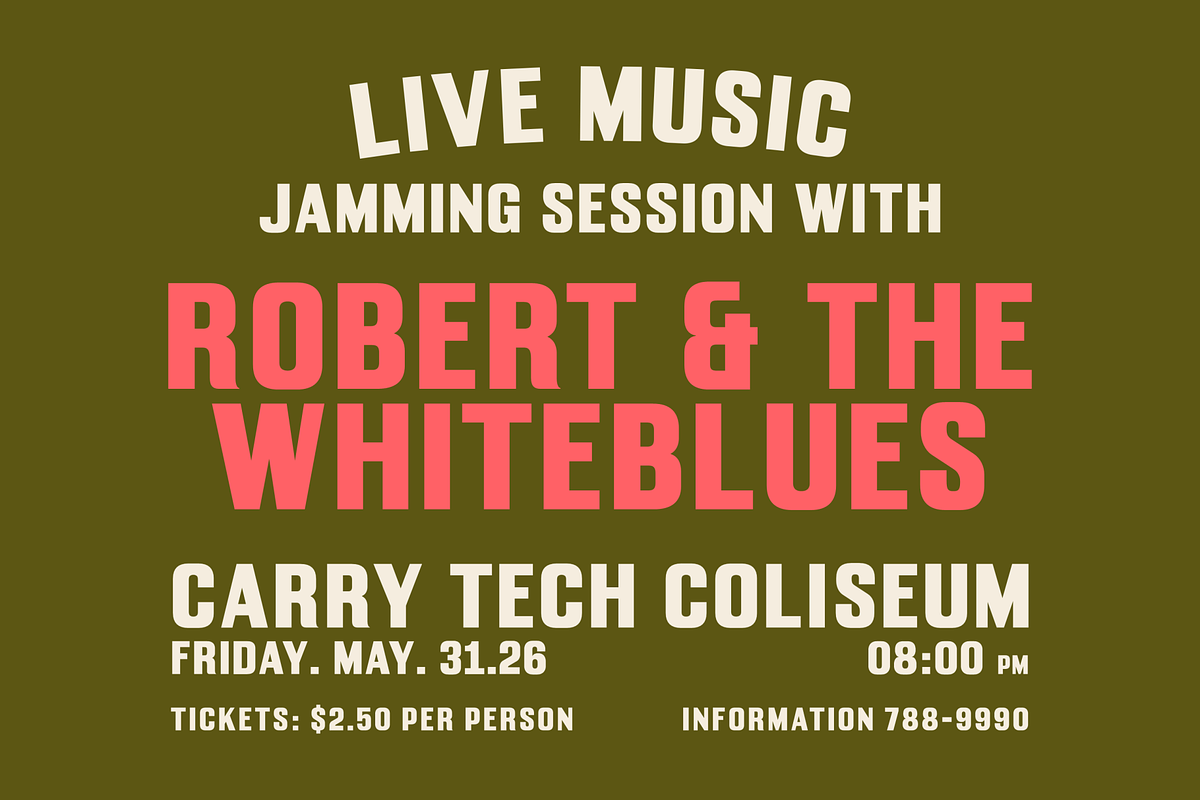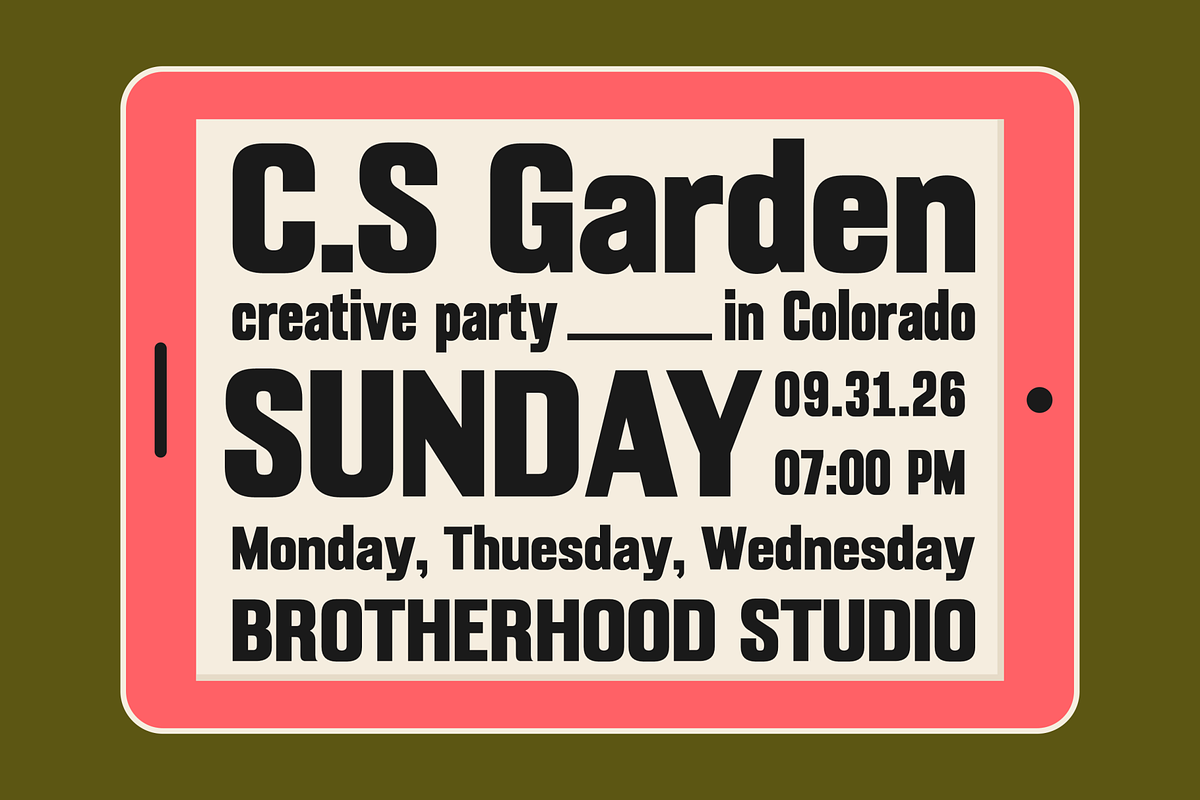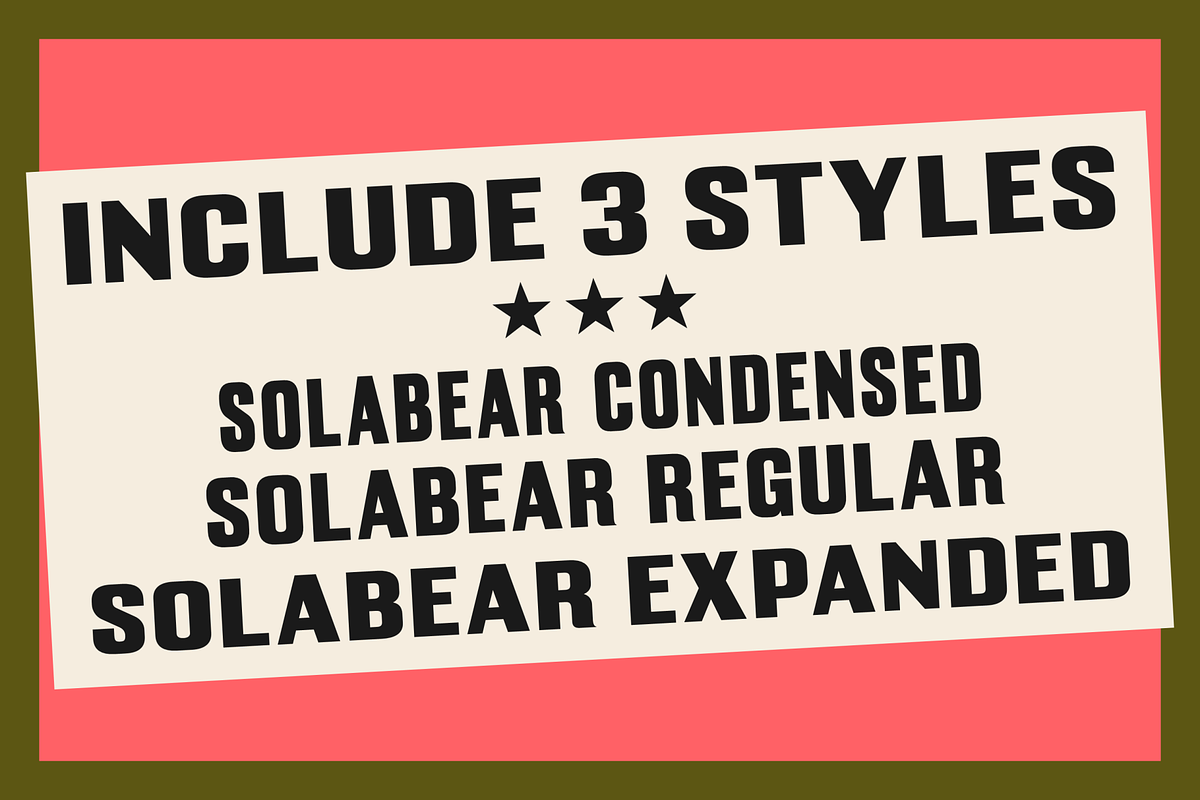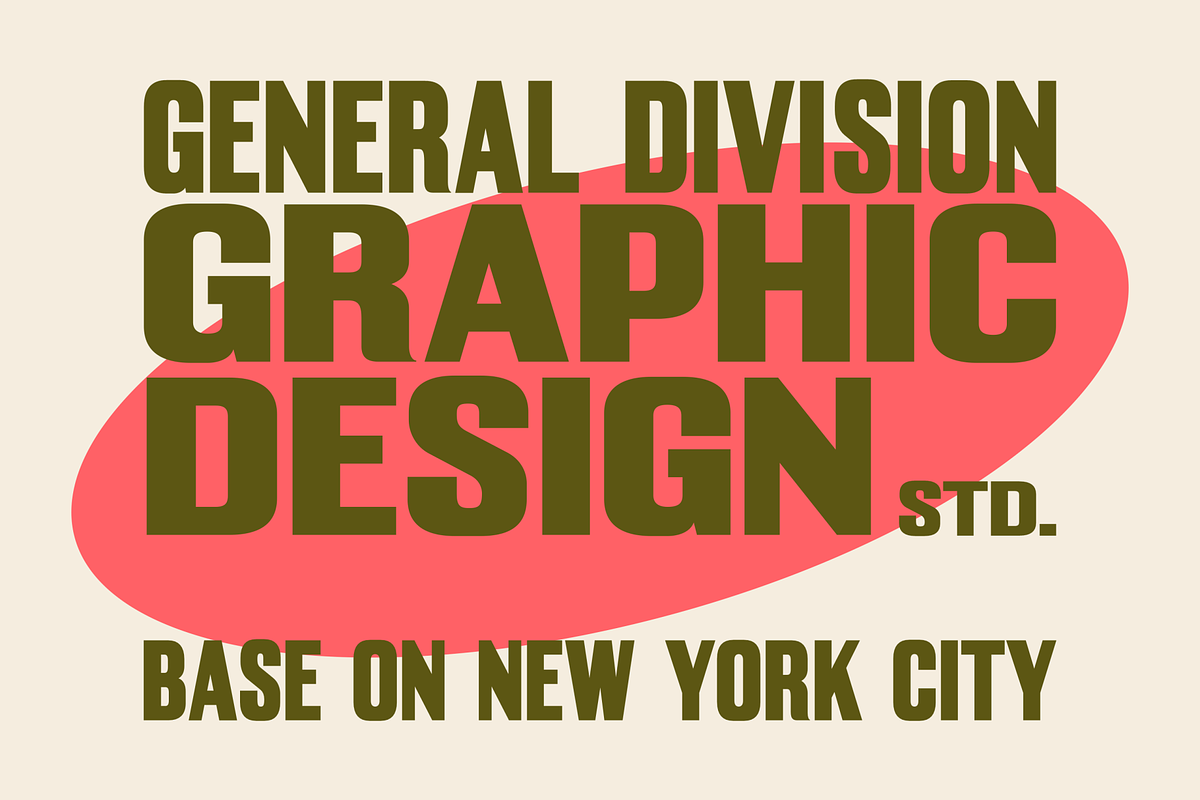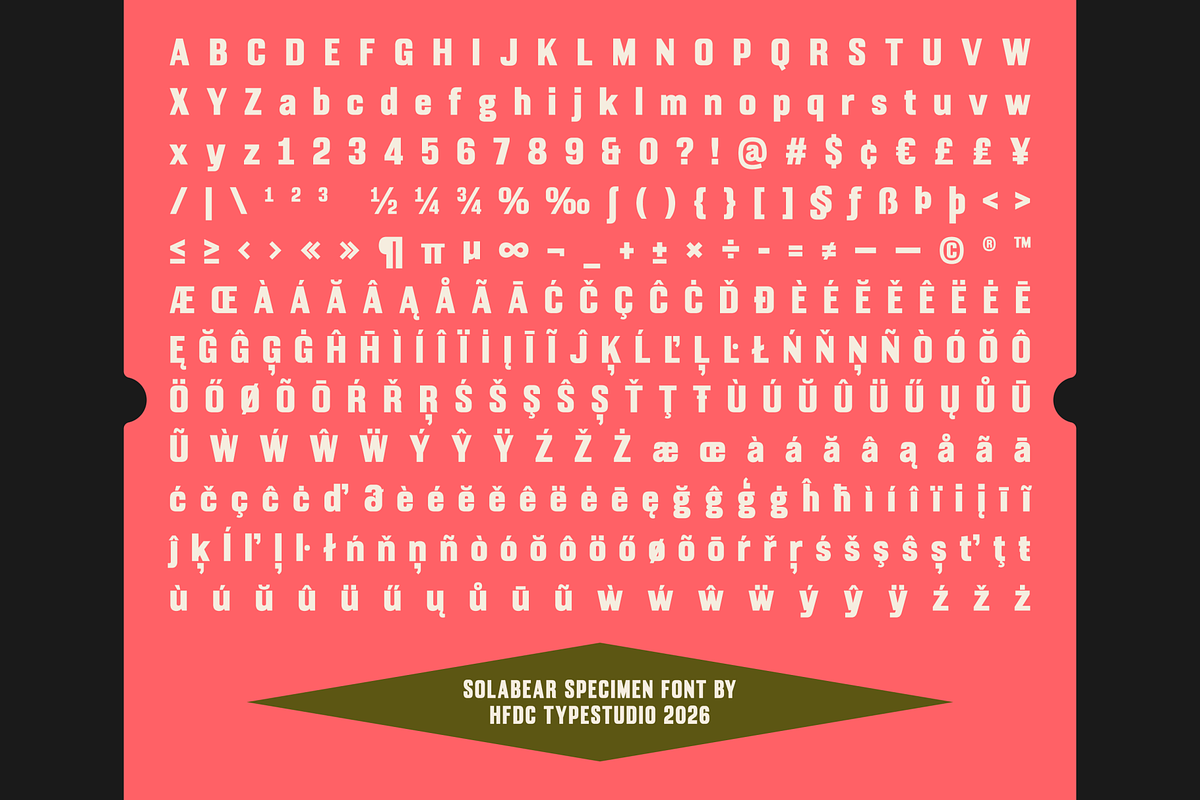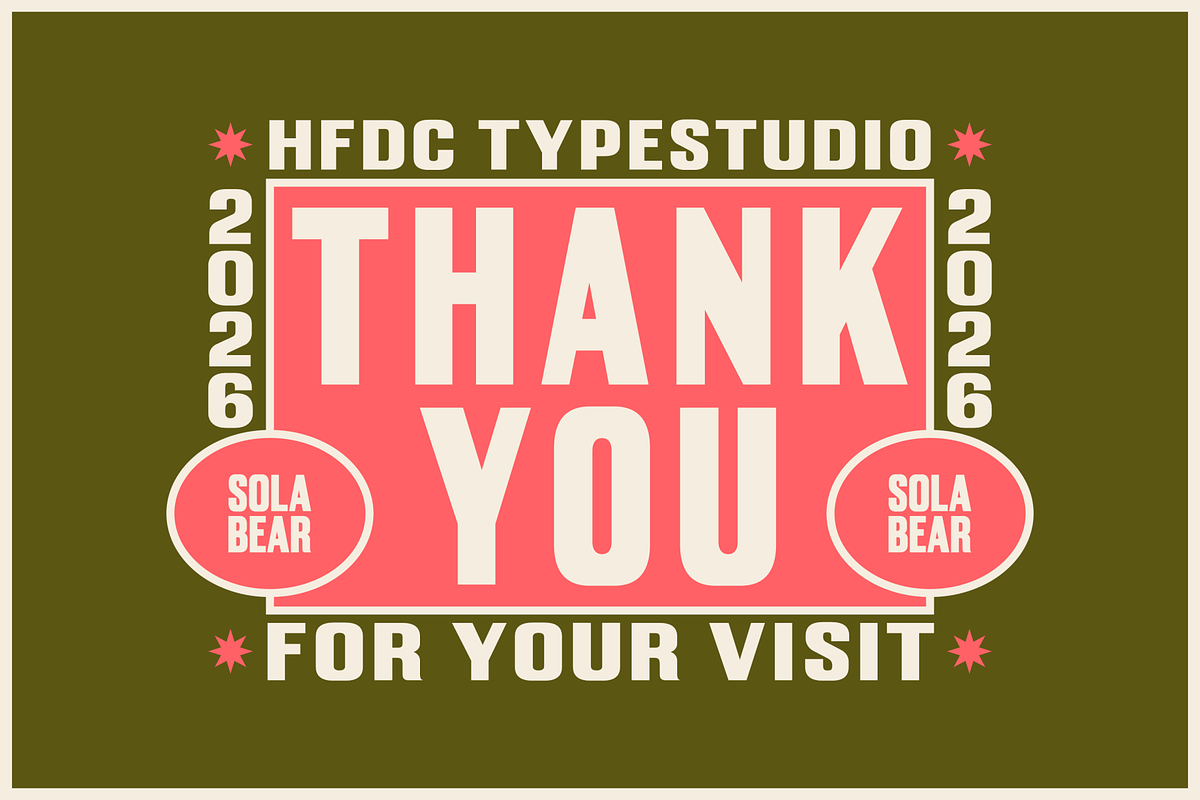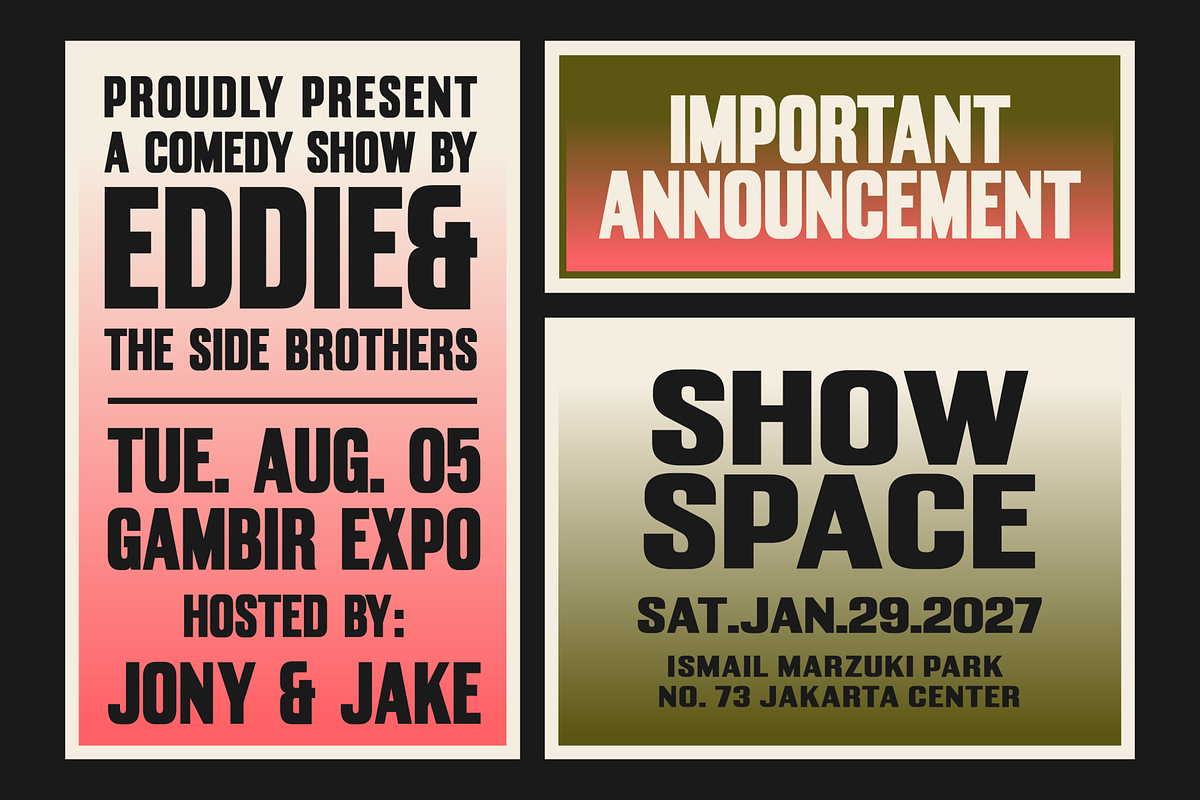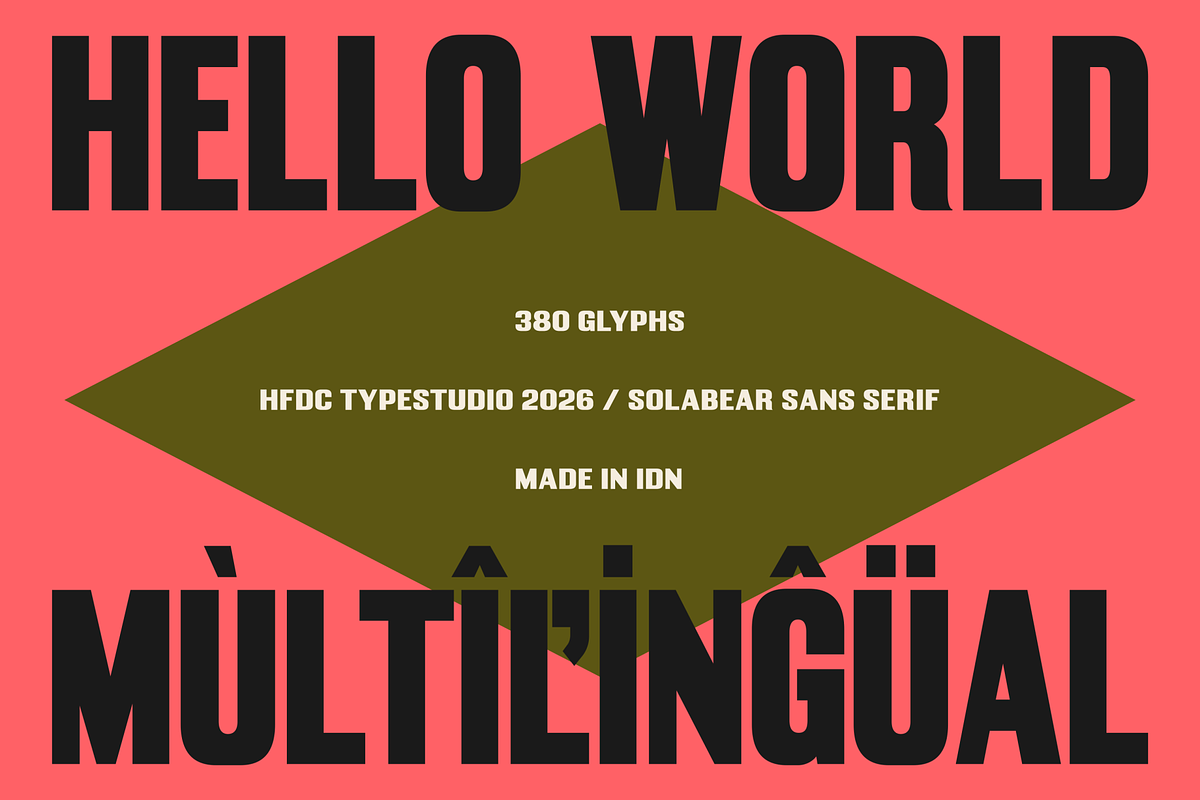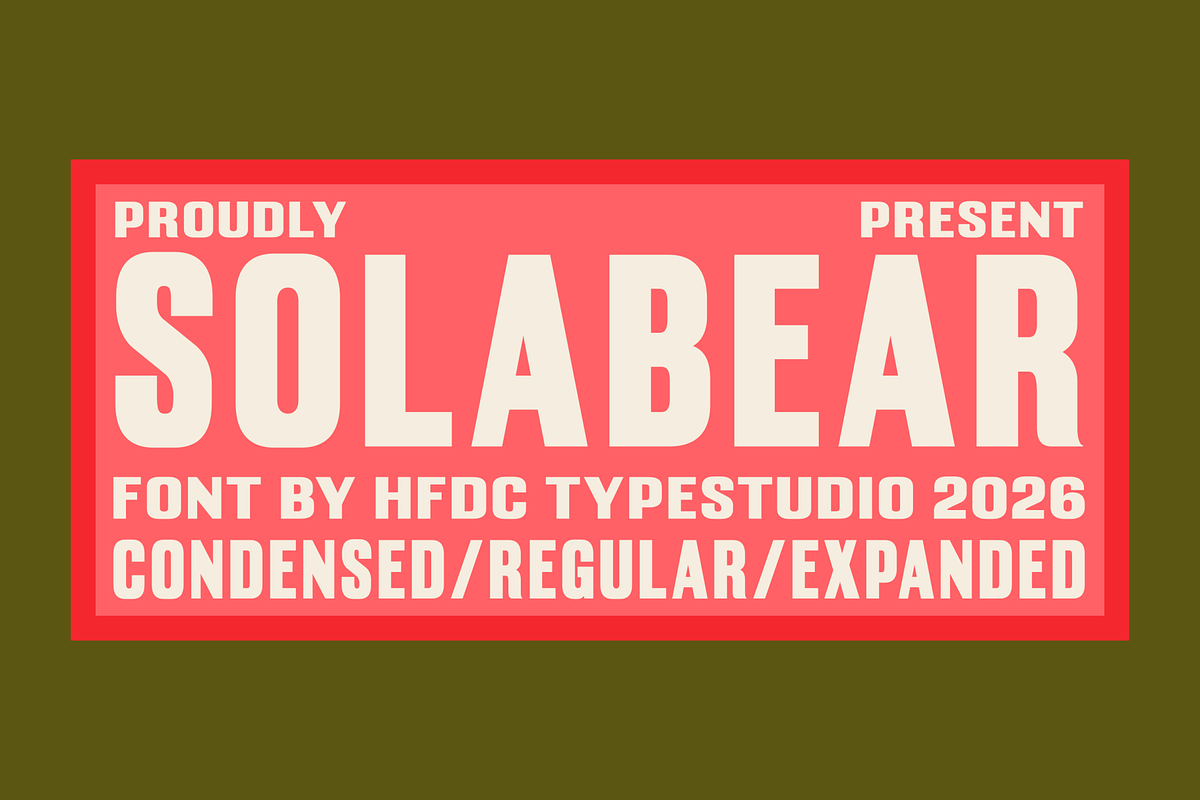
Solabear Condensed Regular Expanded
Introducing Solabear, a striking sans serif font that perfectly balances classic retro vibes with modern boldness. Its condensed yet expanded structure makes Solabear an ideal choice for designs that demand attention, such as logos, badges, packaging, and eye-catching posters. With its robust black characters, this typeface stands out beautifully on book covers and movie posters, ensuring your message is delivered with clarity and style. The versatility of Solabear shines through its 300+ glyph set, accommodating a multitude of languages, making it a perfect fit for international projects.
Its bold and classic aesthetic makes it an excellent choice for marketers and creatives seeking to evoke a sense of nostalgia while still appealing to contemporary tastes. Whether you're designing a standout logo or a memorable packaging label, Solabear is the perfect addition to your creative toolkit, ready to elevate your projects with its unique character and impressive versatility.
3 Style: Condensed, Regular, and Expanded